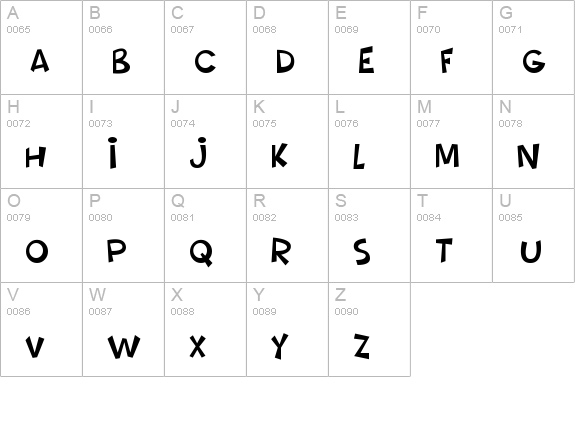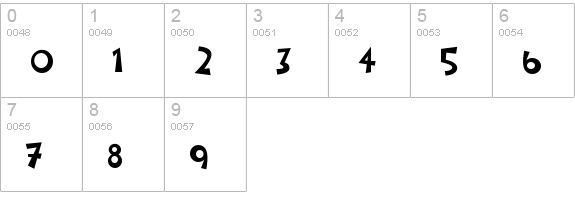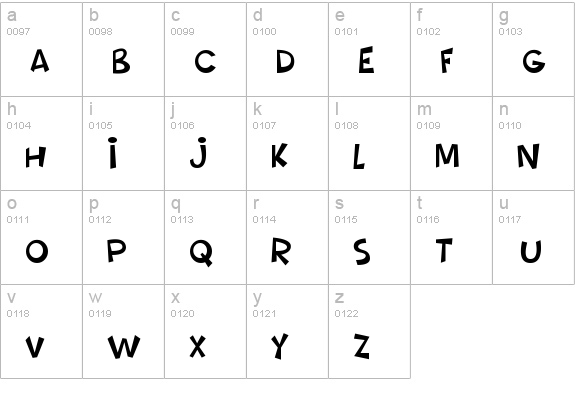
Comictastic font is a whimsical and playful typeface that brings a touch of fun and creativity to any design project. With its bold and expressive letterforms, this font is perfect for comic books, children's books, posters, and more. The rounded edges and slightly irregular shapes give Comictastic font a unique and hand-drawn look that is sure to stand out.